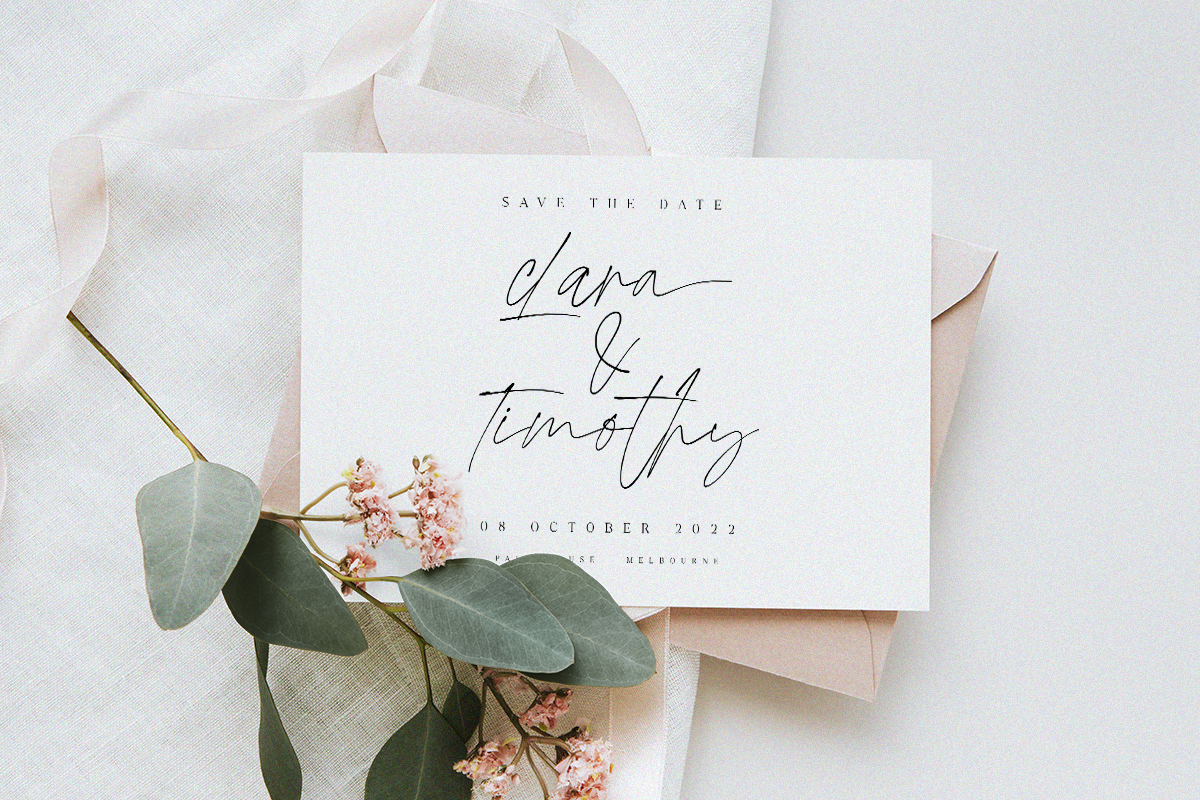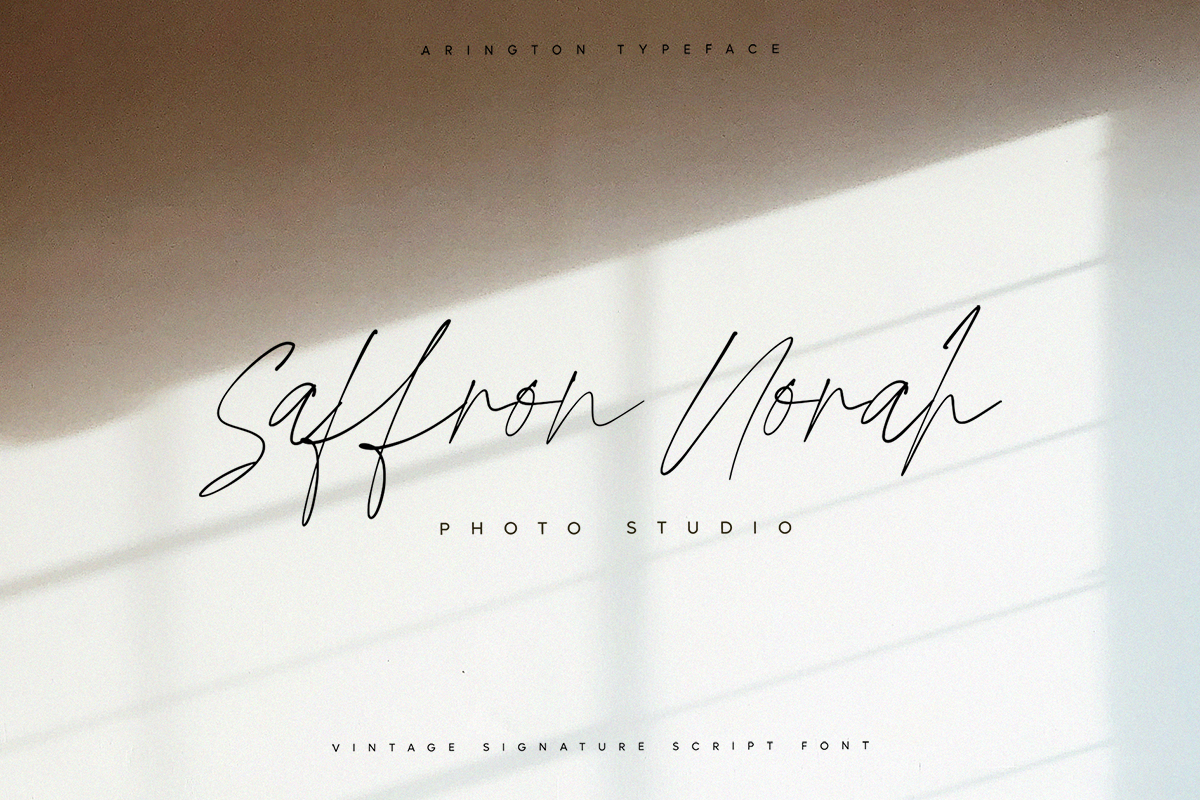
Arington Font
Arington Script Font
This font Is Vintage Script Font Inspired By Signature Characters. Perfect for creating posters, logos, greeting cards, packaging and so much more! Its charming and warm character will help you give your project a truly unique feel.